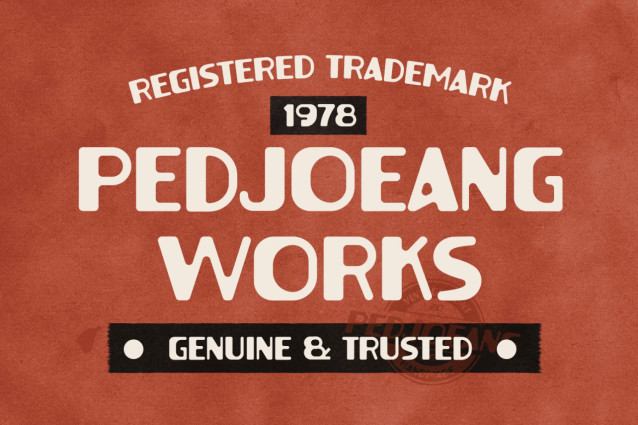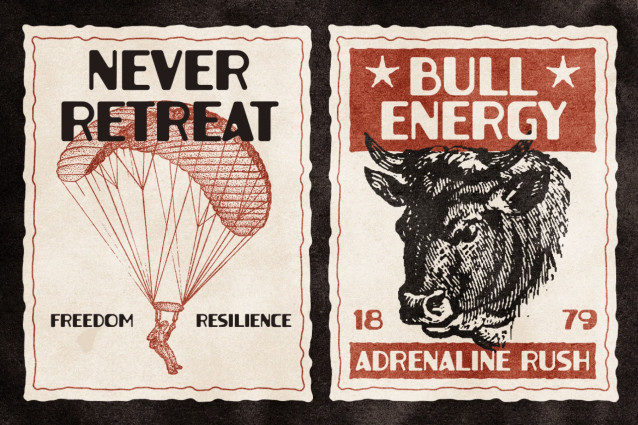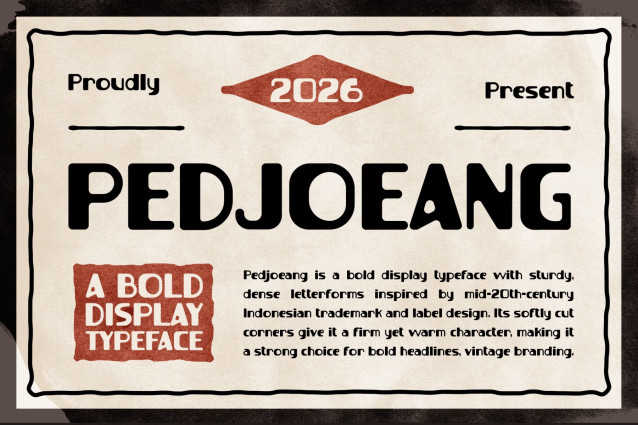
PEDJOEANG Font
PEDJOEANG – Bold Vintage Display Font
Vintage Font PEDJOEANG brings bold retro energy to modern design. Its sturdy letterforms and rugged shapes create an authentic old-school look. At the same time, its clear structure keeps every word strong and readable. Because of this, PEDJOEANG feels distinctive, confident, and full of vintage character.
Rugged Style, Strong Visual Impact
Furthermore, PEDJOEANG combines classic display typography with a raw vintage attitude. Its bold forms look especially striking with distressed textures and retro illustrations. In addition, it pairs naturally with heritage-inspired colors and classic layouts. As a result, every headline gains a powerful nostalgic feel.